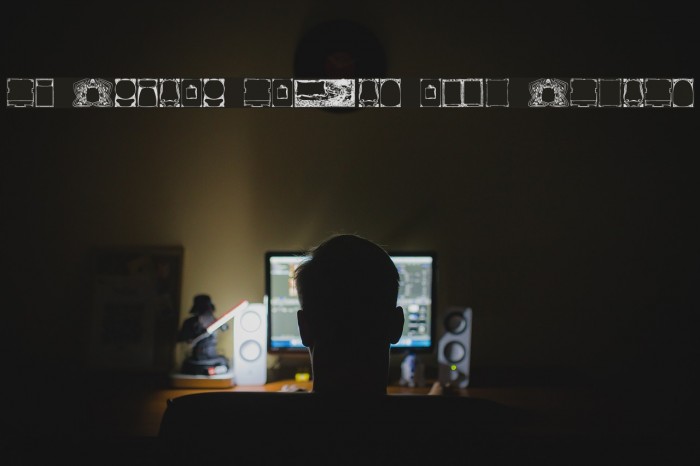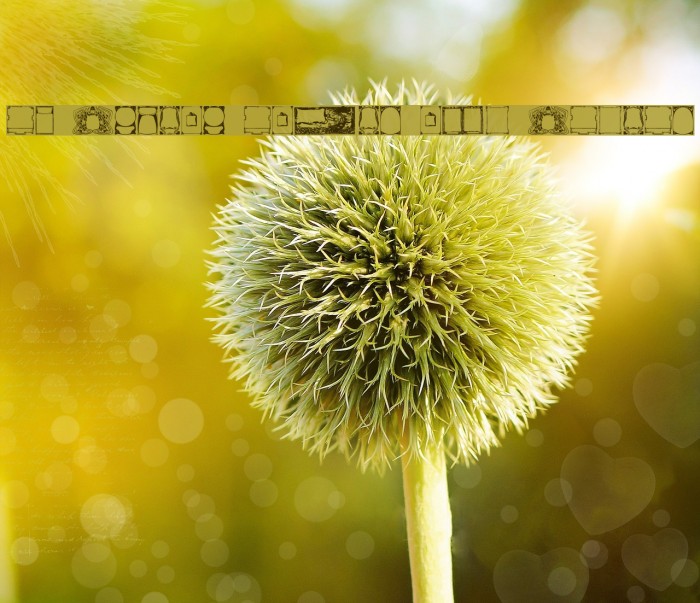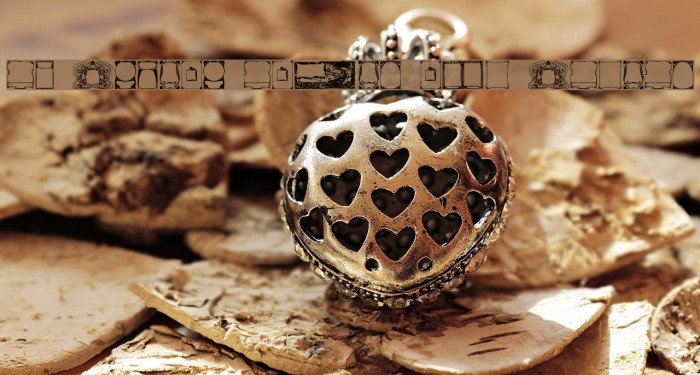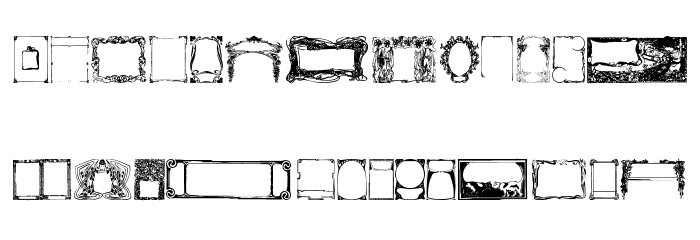
Art Nouveau Frames and Borders Font
Art Nouveau Frames and Borders Description
A decorative display set featuring ornate rectangular frames and borders with intricate, flowing Art Nouveau-inspired details. Each character is represented by a unique border or frame design, emphasizing organic curves and elaborate embellishments.
Ornate Art Nouveau-style frames and borders as glyphs from Decorative fonts.
- Proposed Projects: Invitations, certificates, decorative labels, vintage posters, scrapbooking, packaging design.
- Overall Style: Decorative, Art Nouveau, Vintage
- Use Case: Borders, frames, decorative accents, graphic embellishments.